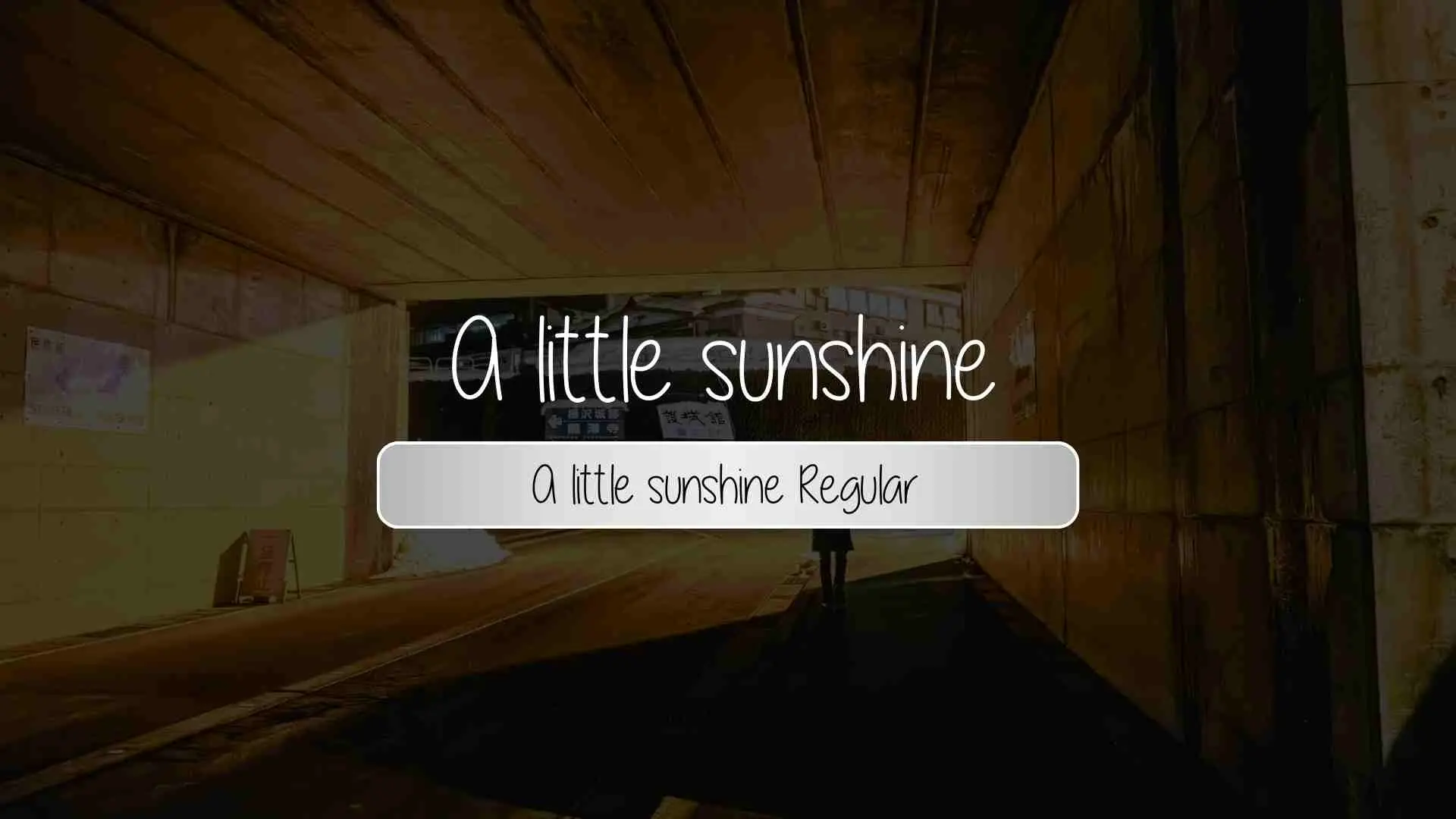
The font A little sunshine Regular, designed by Vanessa Bays, falls under the Display, Script category & A little sunshine font family. Its smooth, flowing letterforms make it a versatile choice for projects that require both elegance and readability. A little sunshine is particularly well-suited for Branding, Crafting, Personalized Stationery and Blog Graphics. With its balance of simplicity and decorative appeal, this font brings a polished touch to both personal and professional designs.